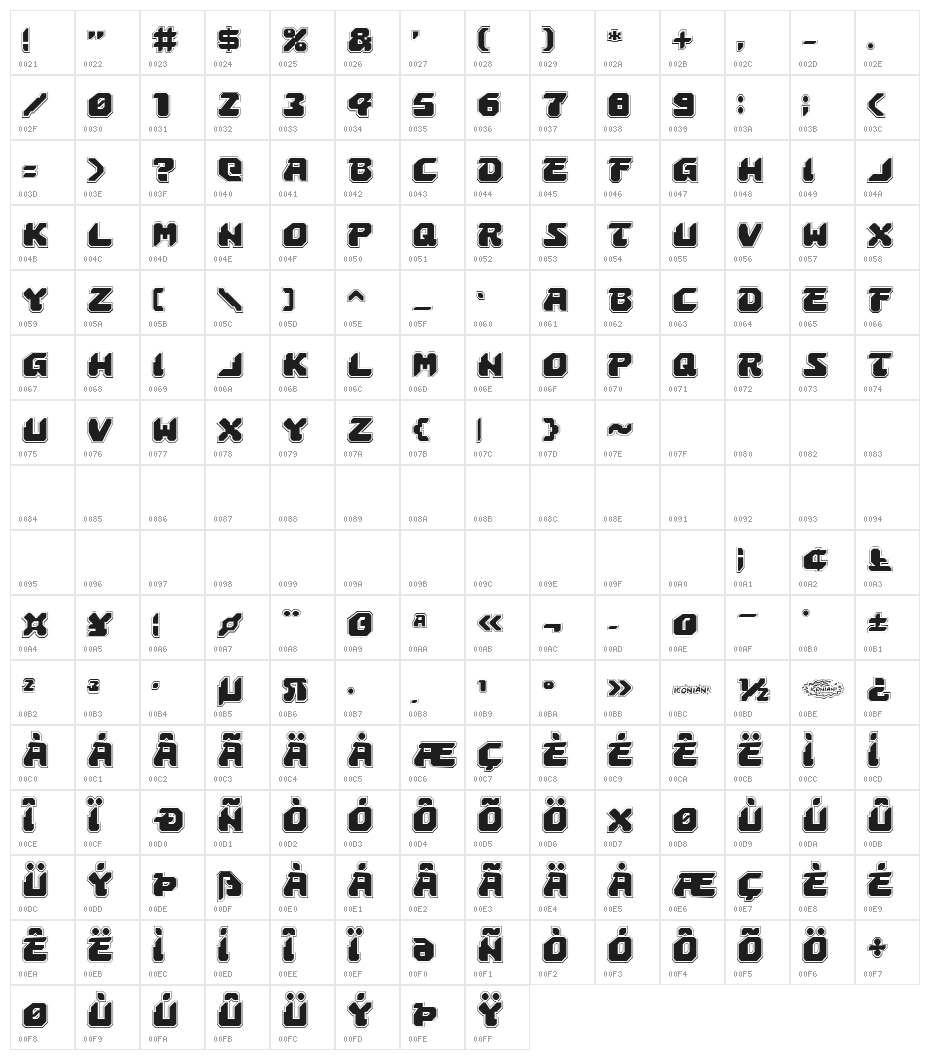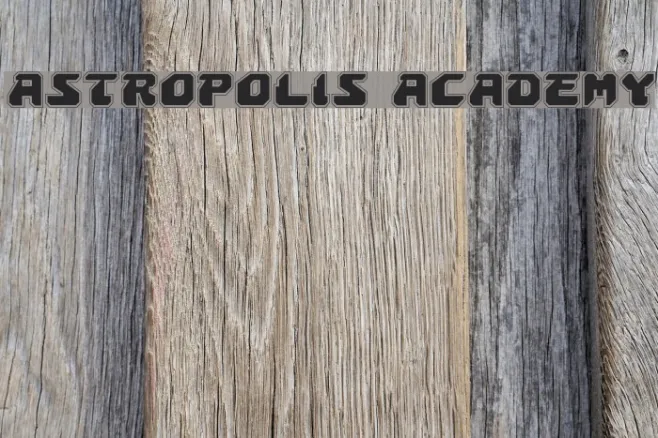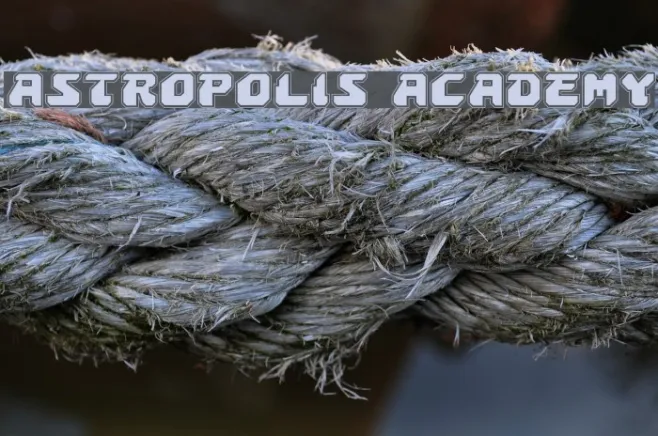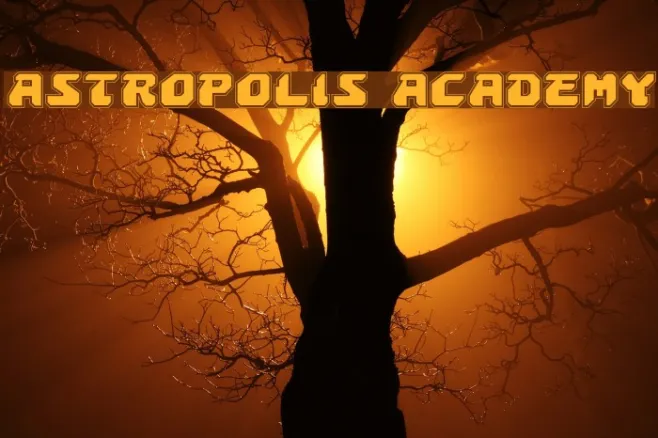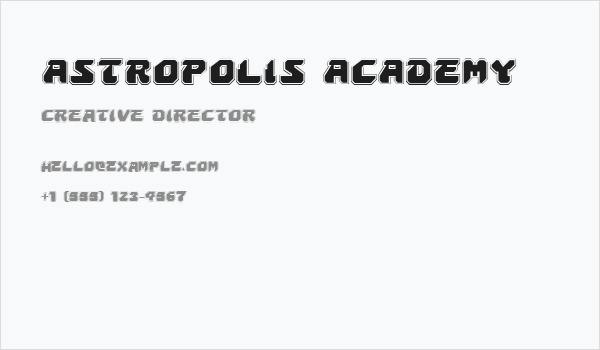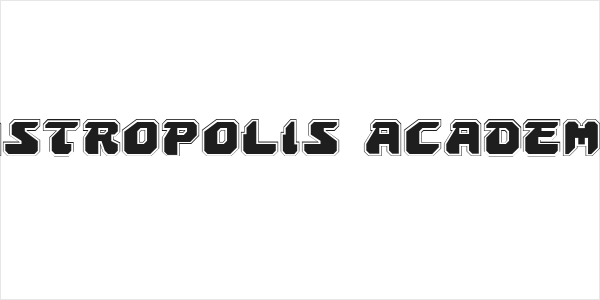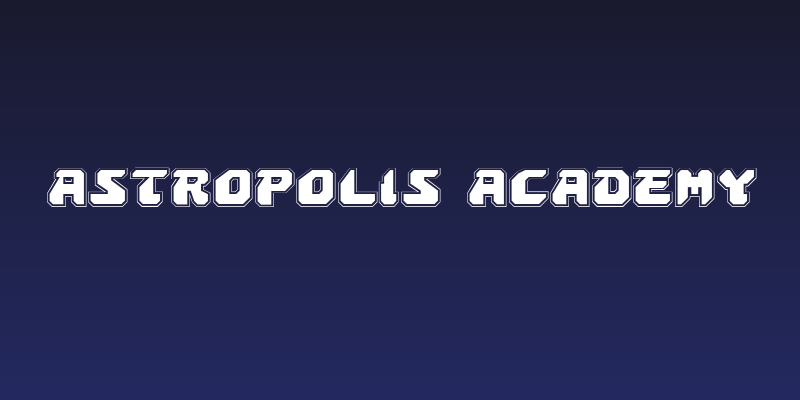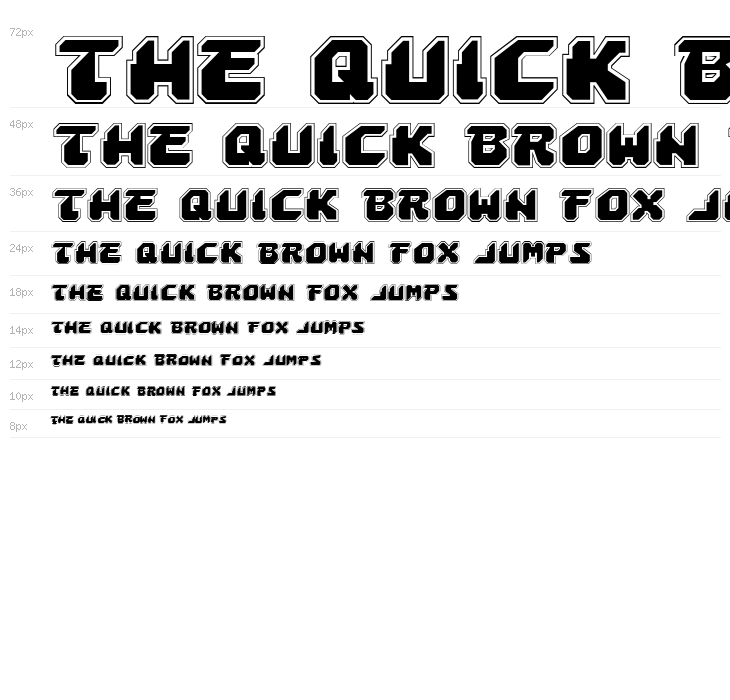
Astropolis Academy Font
Astropolis Academy Description
This font features a bold, futuristic design with a strong geometric influence. Each character is outlined with a thick border, creating a striking contrast between the inner and outer sections. The angular shapes and sharp edges give it a dynamic and modern appearance, reminiscent of digital or sci-fi themes. The uppercase and lowercase letters maintain a consistent style, with the numbers and special characters following suit. This font is ideal for projects that require a bold and impactful visual statement.